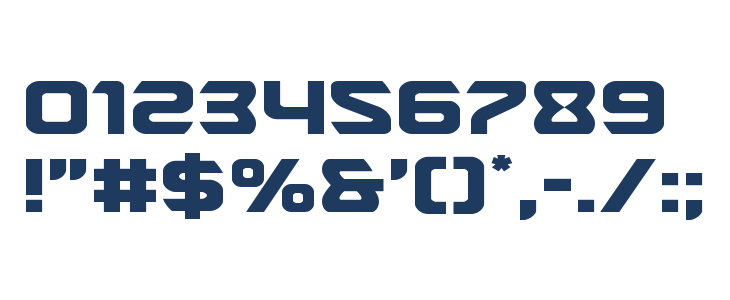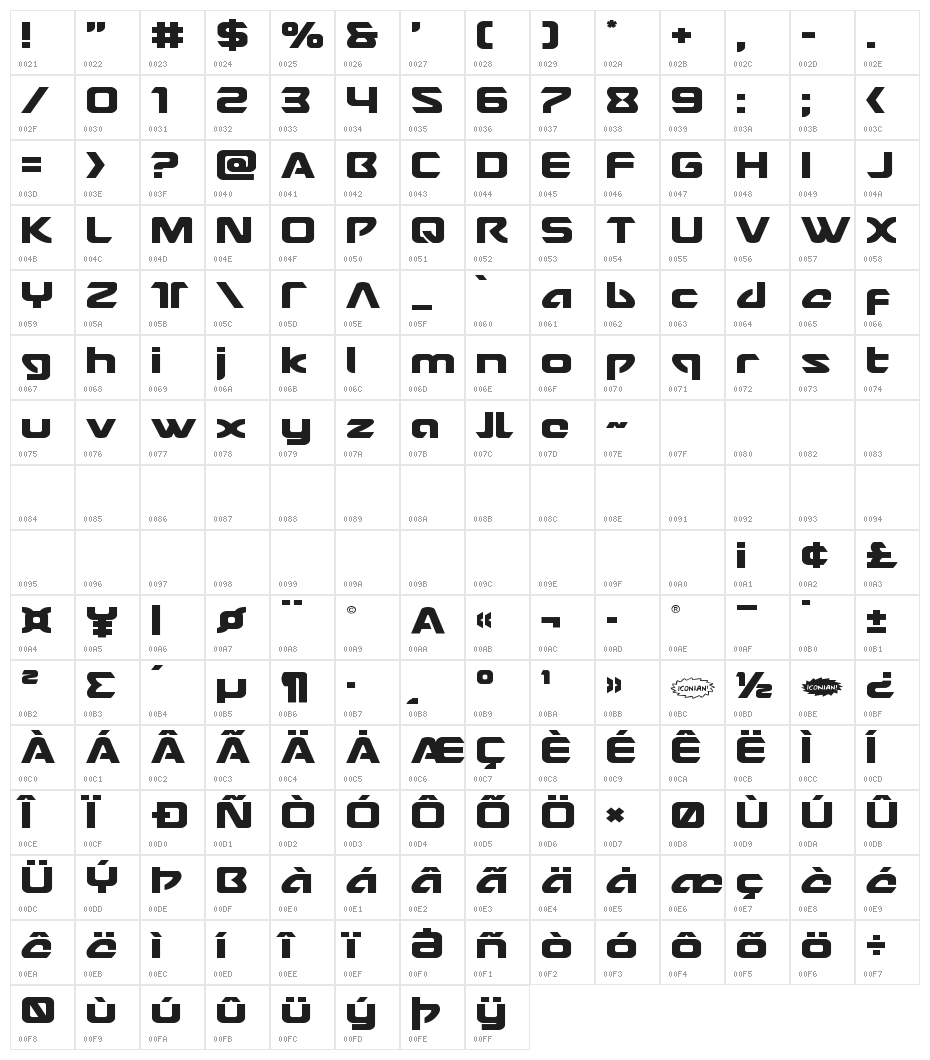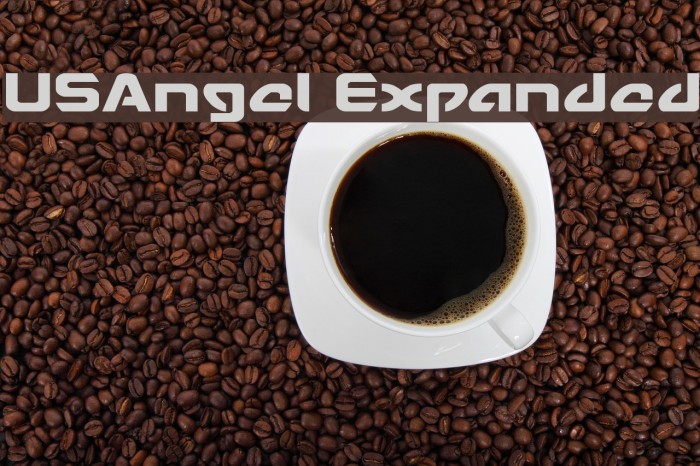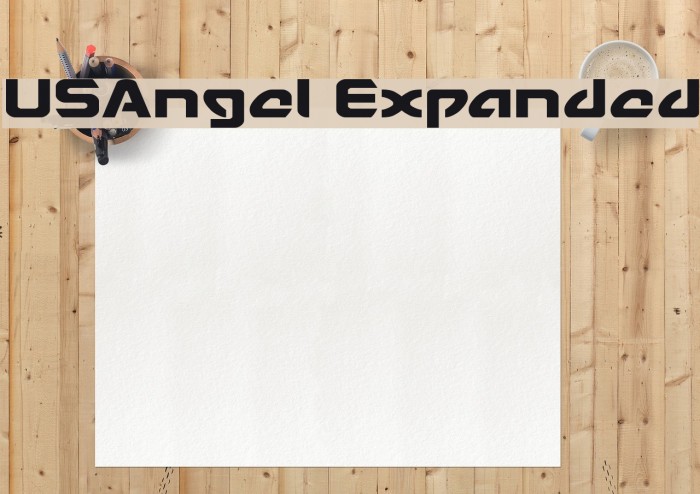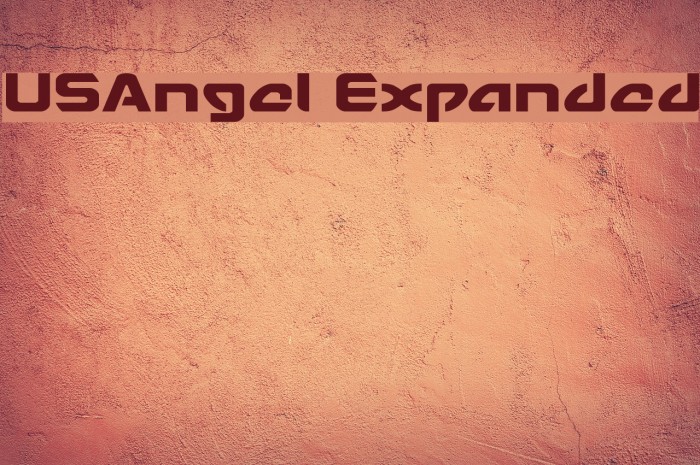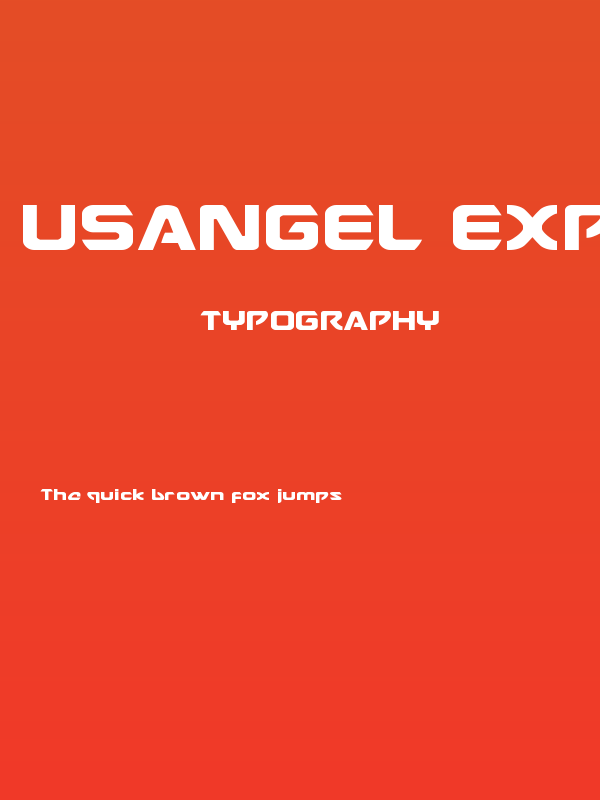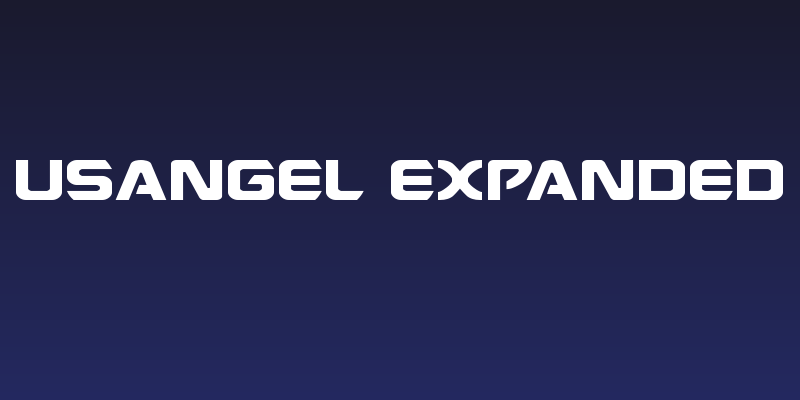
USAngel Expanded Font
USAngel Expanded Description
This font features a bold and futuristic design with a strong geometric structure. The characters are wide and have a distinct angular style, giving them a modern and dynamic appearance. The uppercase letters are particularly striking, with sharp edges and a consistent height that creates a uniform look. The lowercase letters maintain this angular theme, providing a cohesive aesthetic throughout the font. The numerals and special characters are equally bold, ensuring readability and impact. This font is ideal for projects that require a modern and assertive typeface.
| Proposed Projects | Ideal for technology branding, sci-fi posters, video game titles, and modern advertising. |